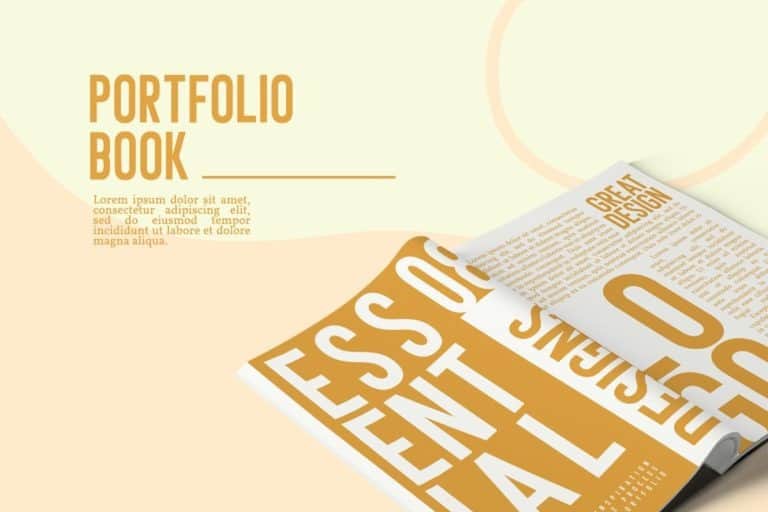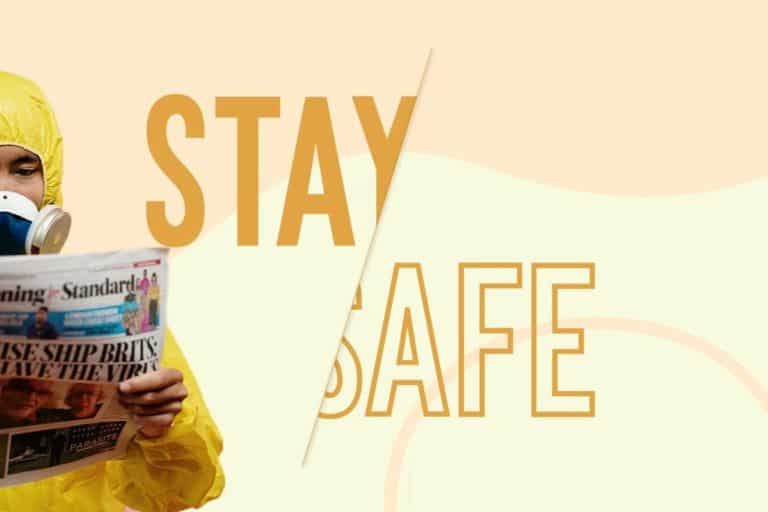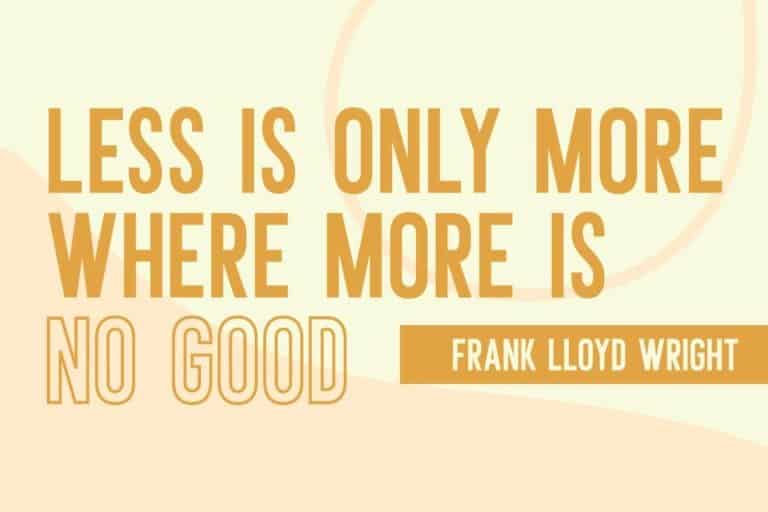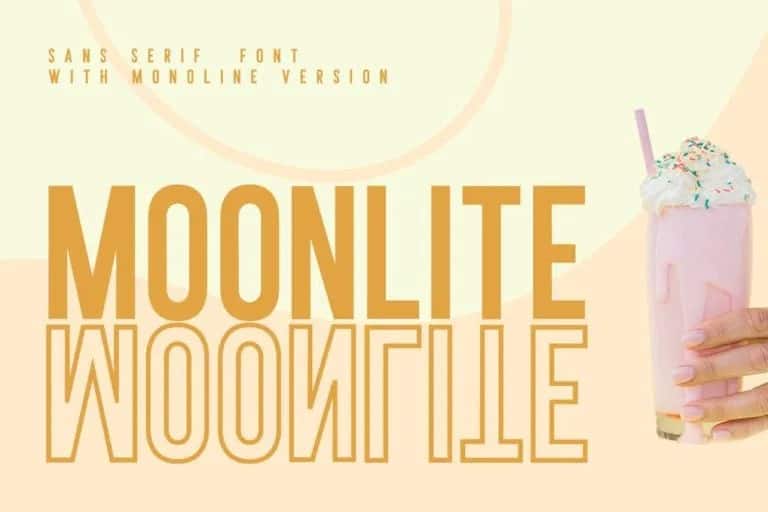
Moonlite Sans Serif Font
Introducing Moonlite Sans Serif Font, inspired by the lettering found on Art Deco posters, whose design embraces the latest digital font technology. This versatile font contains multiple widths which make it an ideal solution to fit every design need. Made from font designer named Din Studio. Moonlite is modern display sans font. Made for any professional project branding. Every letter has a unique and beautiful touch. available with outline version.